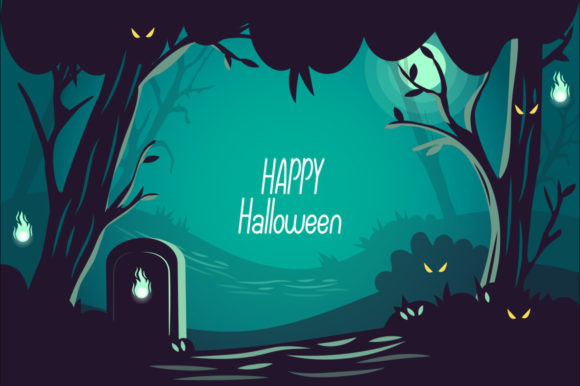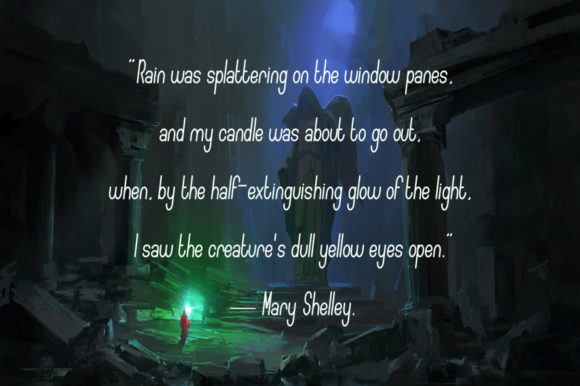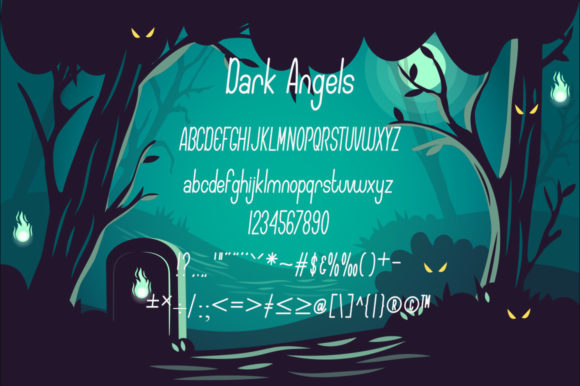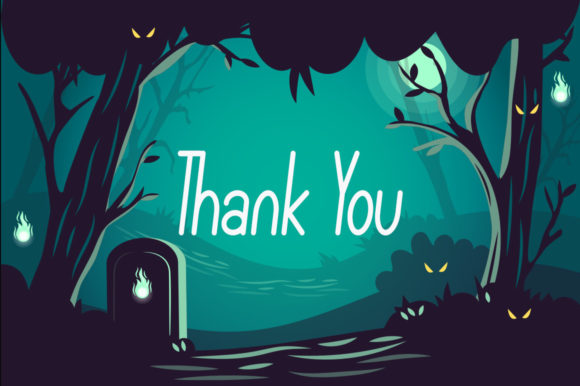
Discover the Elegance of Dark Angels Font: Elevate Your Crafting Ideas
In the world of design and crafting, the right font can make all the difference. It can add a touch of elegance, whimsy, or sophistication to your project, transforming it from ordinary to extraordinary. If you’re on the hunt for a font that can elevate your crafting ideas, look no further than Dark Angels Font. This simple yet adaptable handwritten font is a game-changer for designers, crafters, and DIY enthusiasts alike.
The Charm of Dark Angels Font
Dark Angels Font is a beautiful, handwritten font that exudes a sense of charm and versatility. Its simple design makes it easy to read and use in a variety of projects, from cards and invitations to branding, labels, and more. The font’s adaptability is one of its most significant advantages, allowing you to use it with confidence in different contexts and applications.
With Dark Angels Font, the creative possibilities are endless. Imagine adding a touch of elegance to your handmade cards, or using the font to create stunning branding and labels for your small business. The font’s versatility also makes it perfect for DIY projects, such as crafting personalized gift tags, creating custom wall art, or designing unique journal pages.
Why Designers and Crafters Love Dark Angels Font
So, what makes Dark Angels Font a favorite among designers and crafters? Here are just a few reasons:
- Easy to read: The font’s clear and simple design makes it easy to read, even in small sizes.
- Versatile: Dark Angels Font can be used in a wide range of projects, from formal to informal applications.
- Elegant: The font’s handwritten design adds a touch of elegance and sophistication to any project.
- Adaptable: Dark Angels Font can be used in different contexts, from digital to print applications.
Tips for Using Dark Angels Font
To get the most out of Dark Angels Font, here are a few tips to keep in mind:
- Experiment with different sizes: Dark Angels Font looks great in a range of sizes, from small to large.
- Pair with other fonts: Try pairing Dark Angels Font with other fonts to create a unique and interesting contrast.
- Use in combination with images: The font looks great when used in combination with images, graphics, and other visual elements.
- Don’t be afraid to get creative: Dark Angels Font is a versatile font that can be used in many different ways, so don’t be afraid to experiment and try new things.
| Font Name | Dark Angels Font |
| Author | cavalera creative |
In conclusion, Dark Angels Font is a simple yet powerful font that can elevate a wide range of crafting ideas. Its versatility, elegance, and adaptability make it a favorite among designers and crafters. Whether you’re creating handmade cards, branding and labels, or DIY projects, Dark Angels Font is a great choice. So why not give it a try and see the amazing results for yourself?